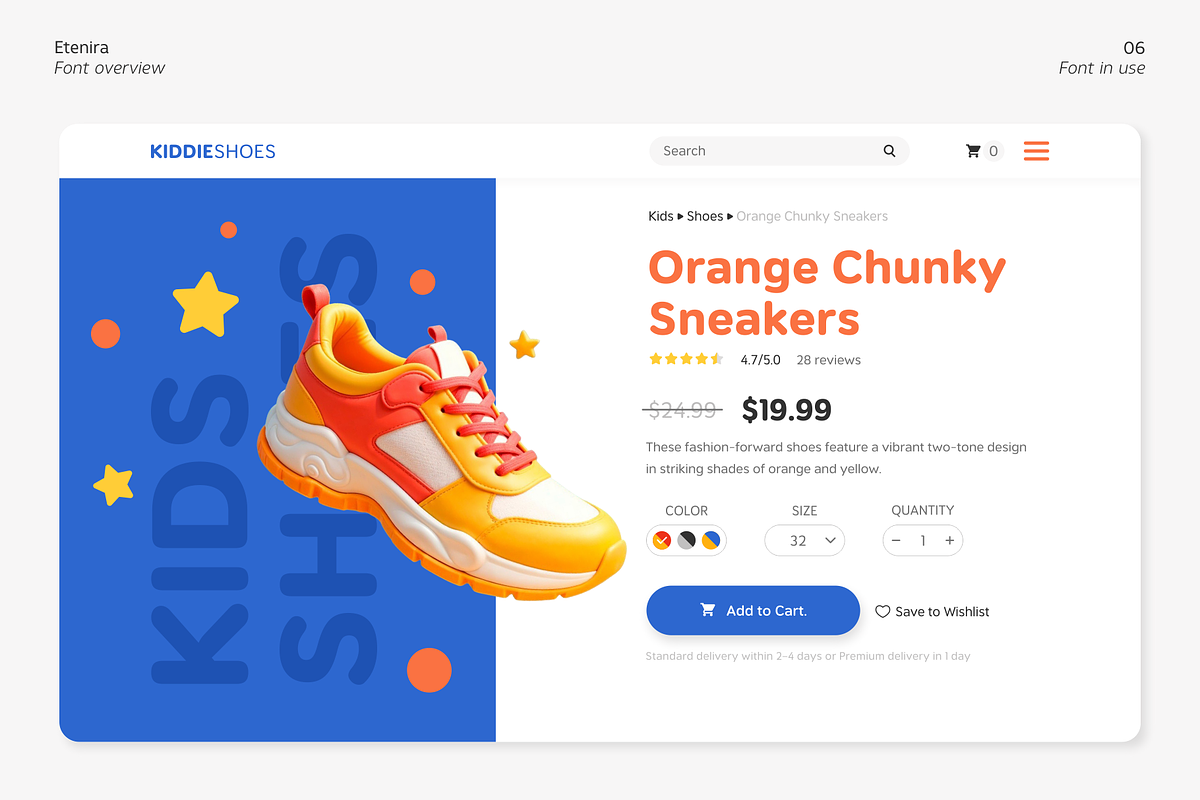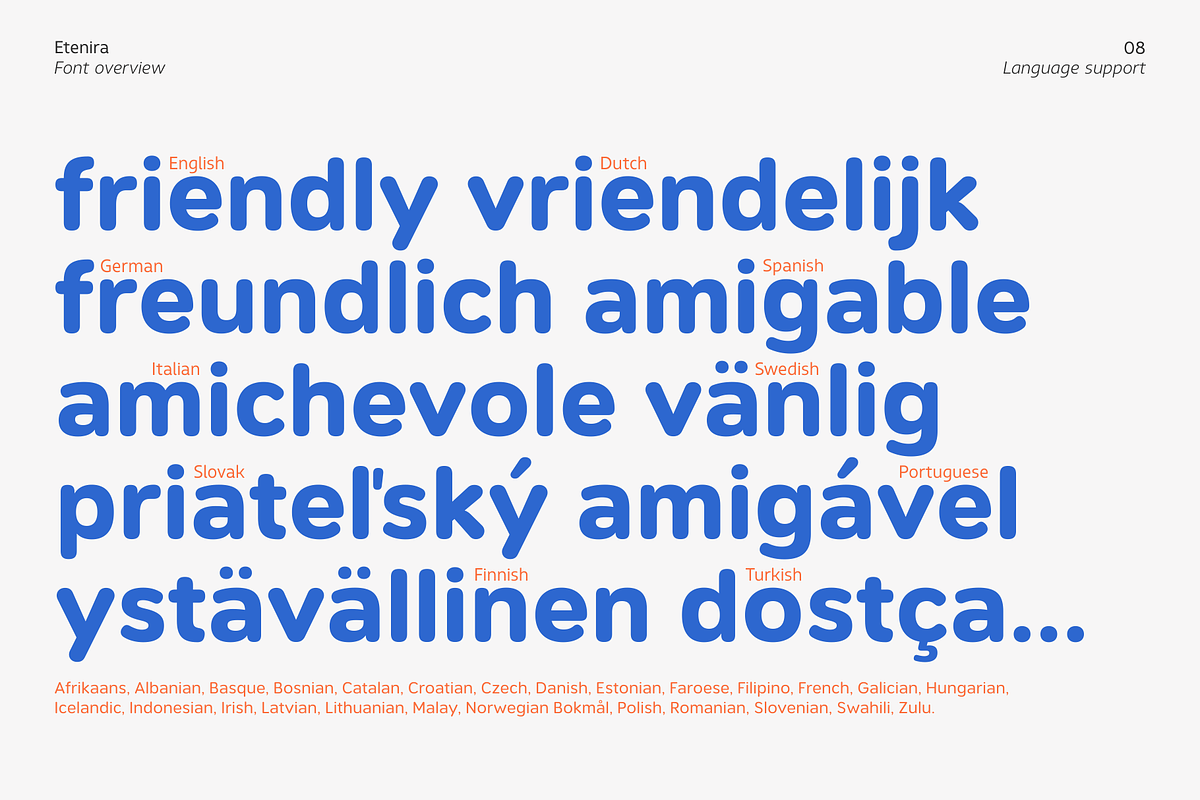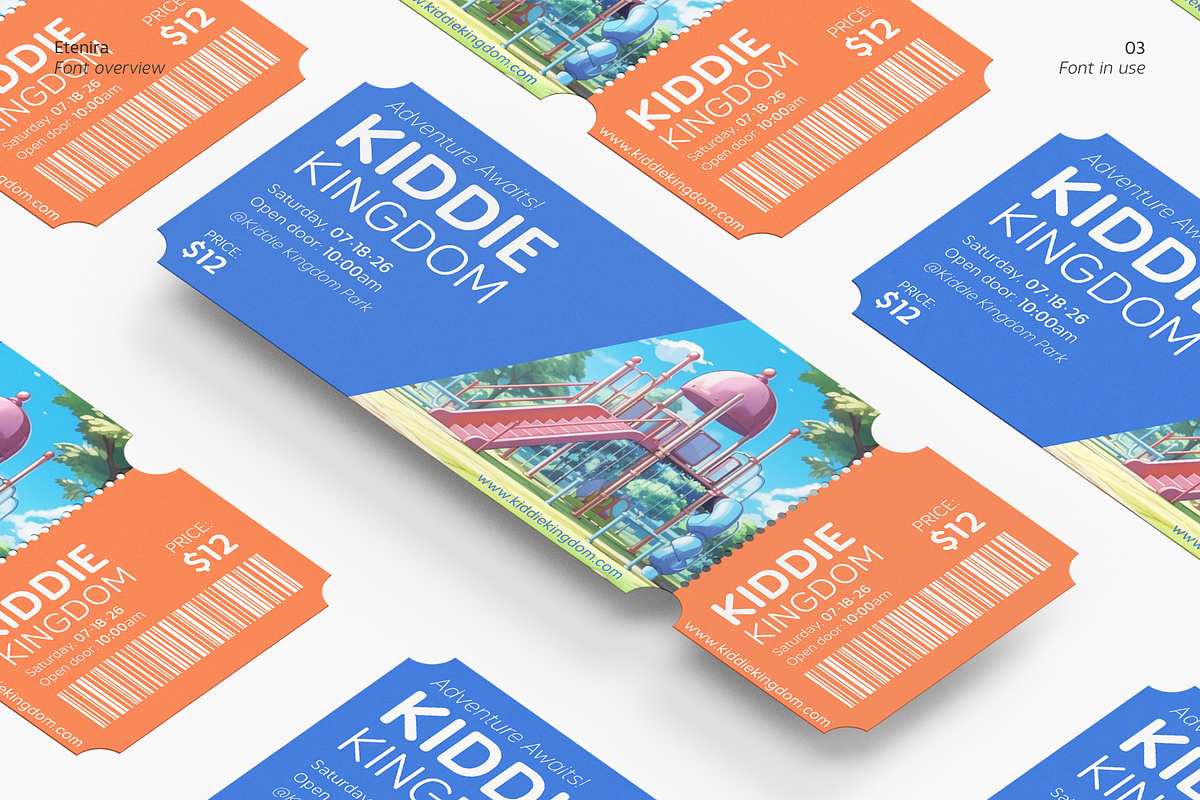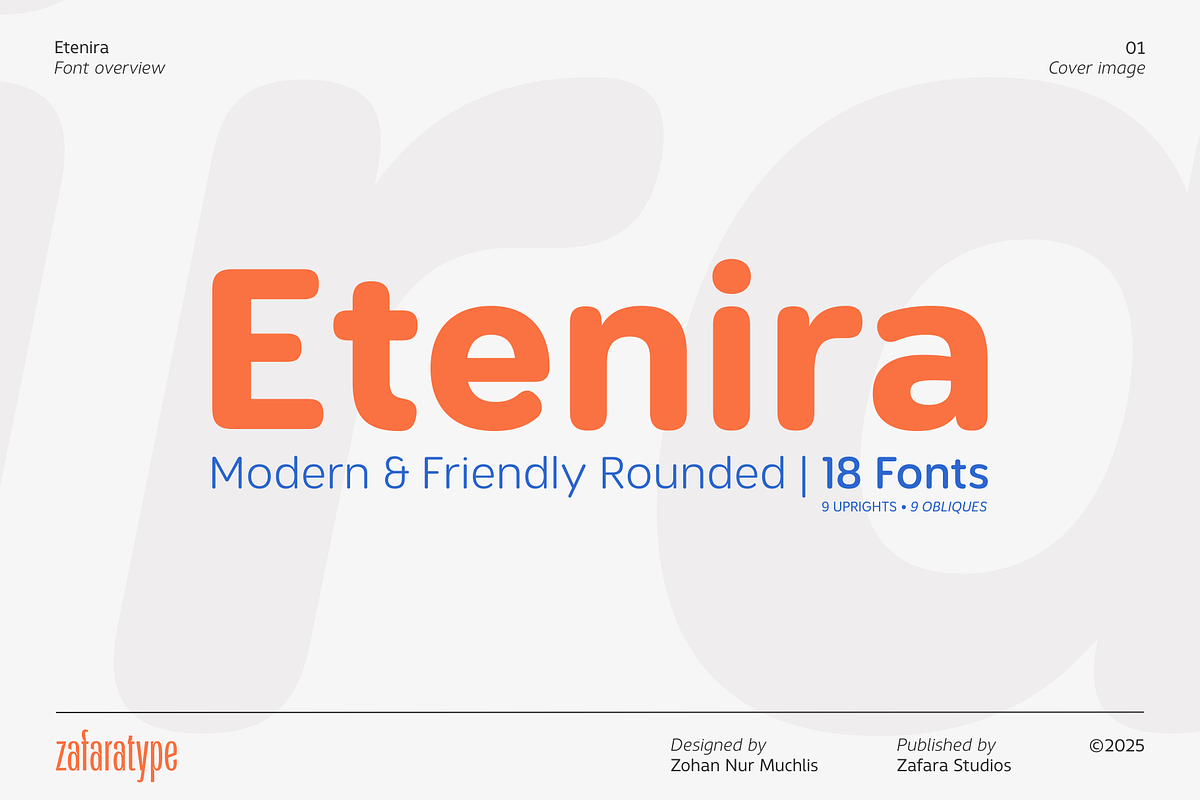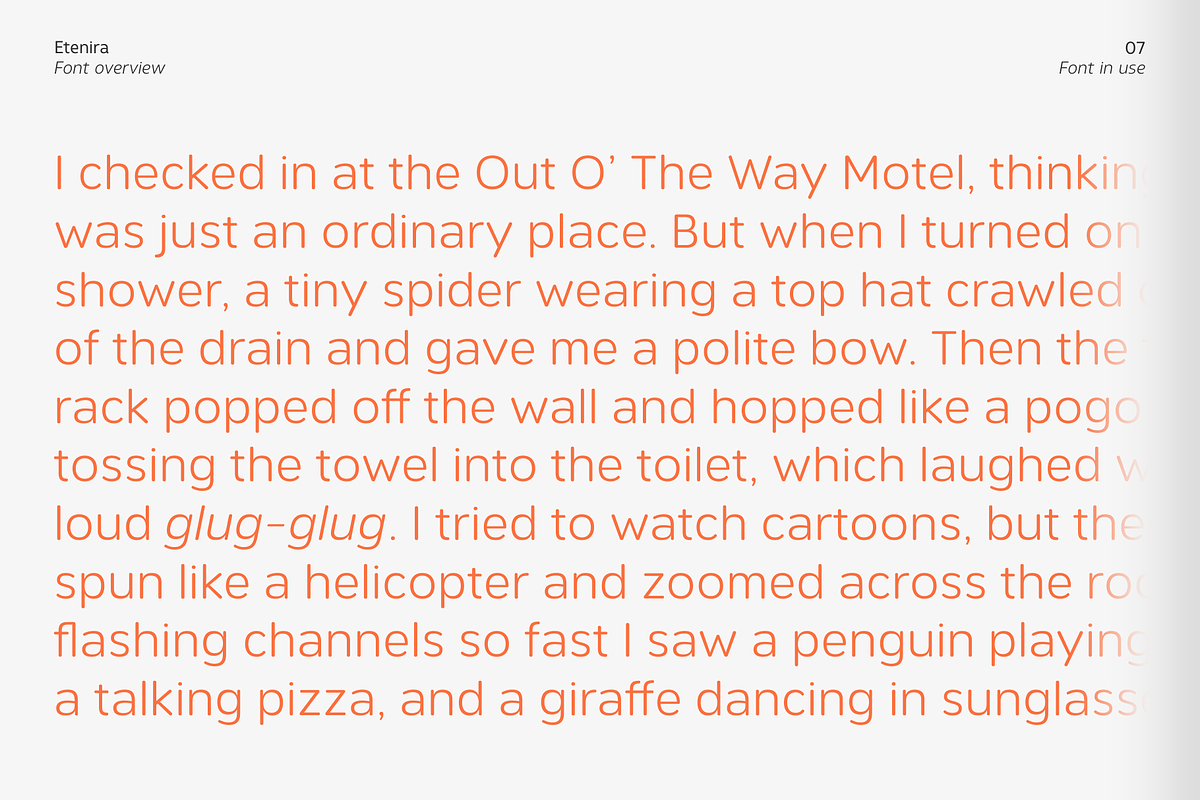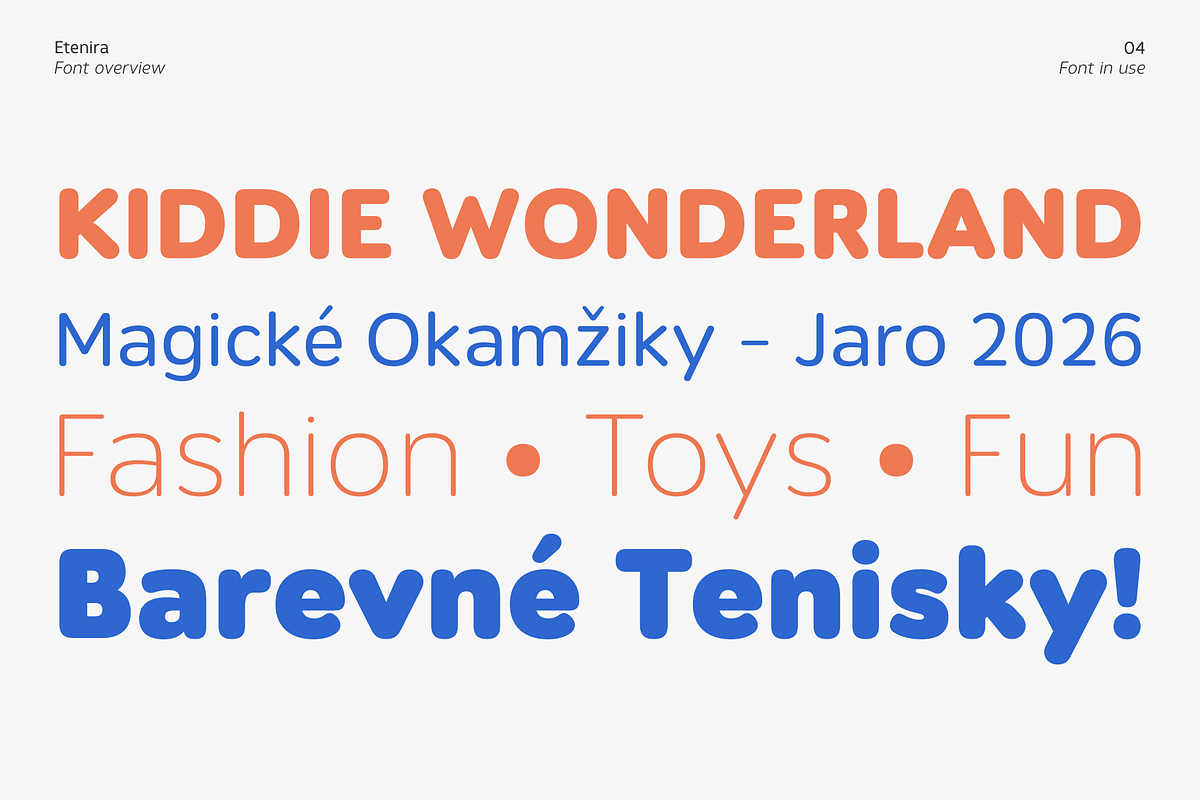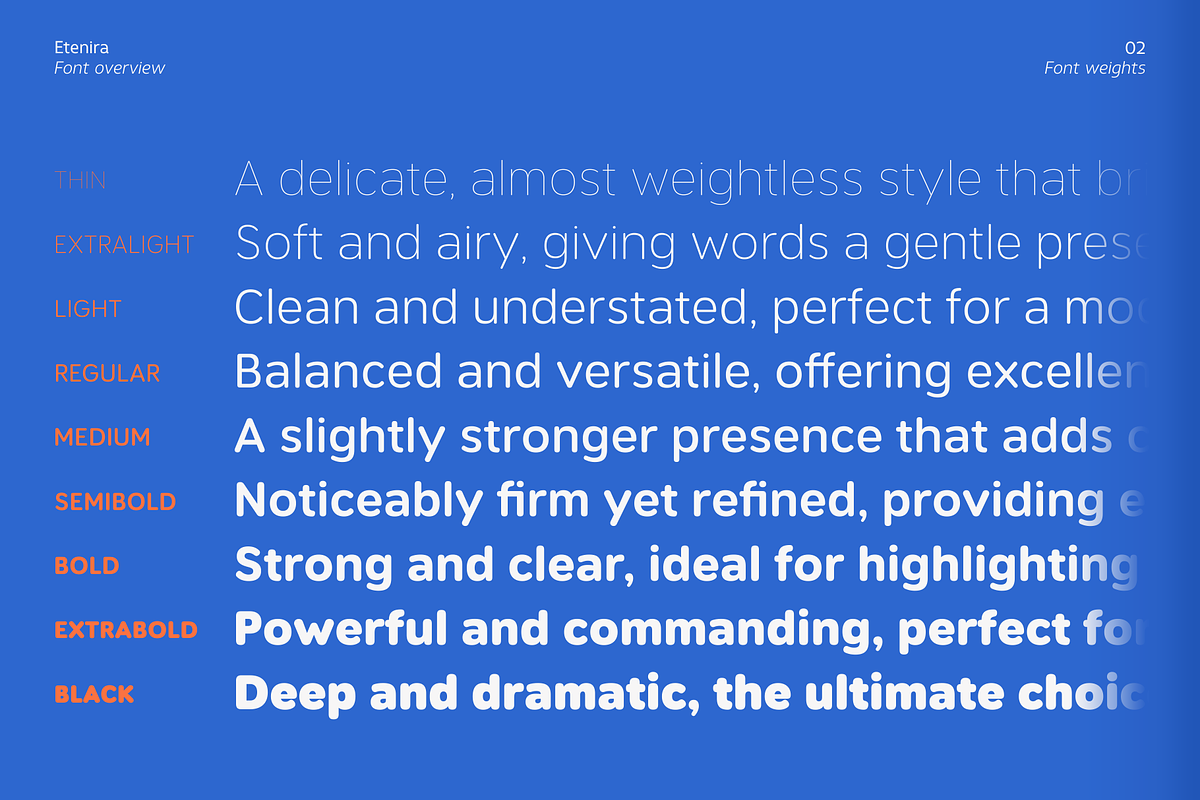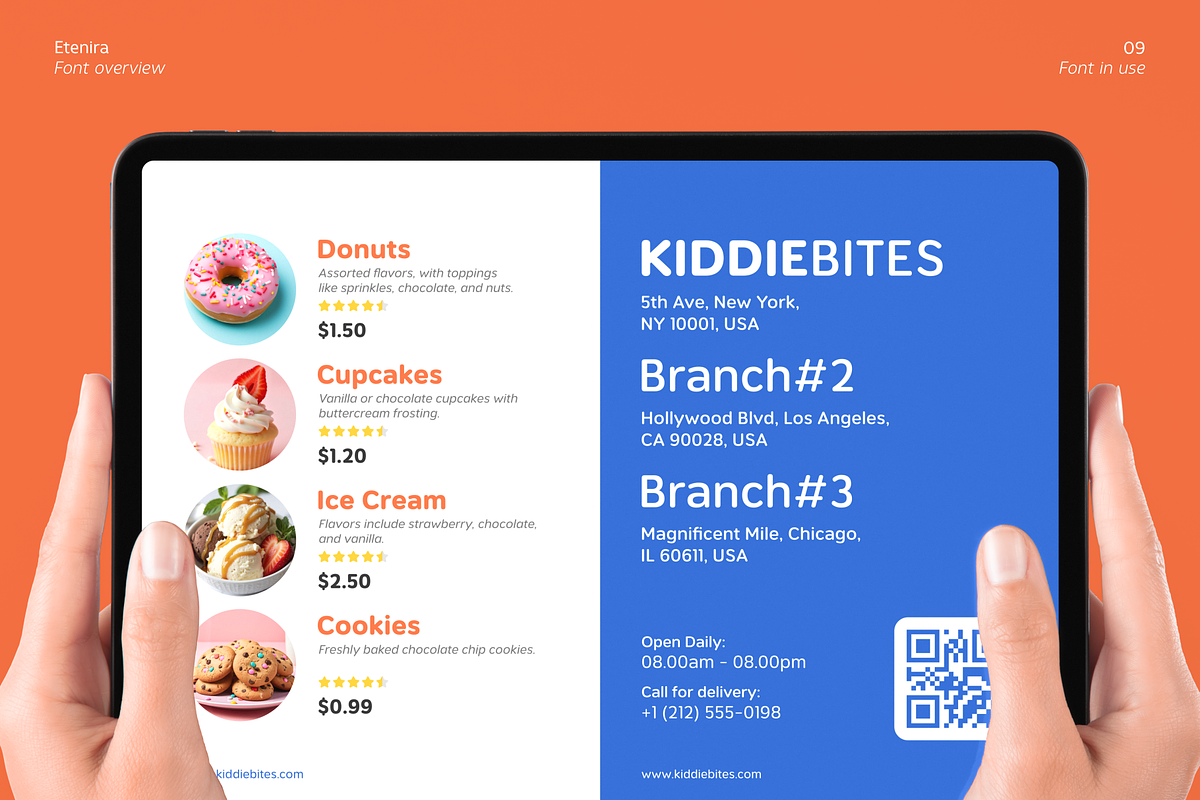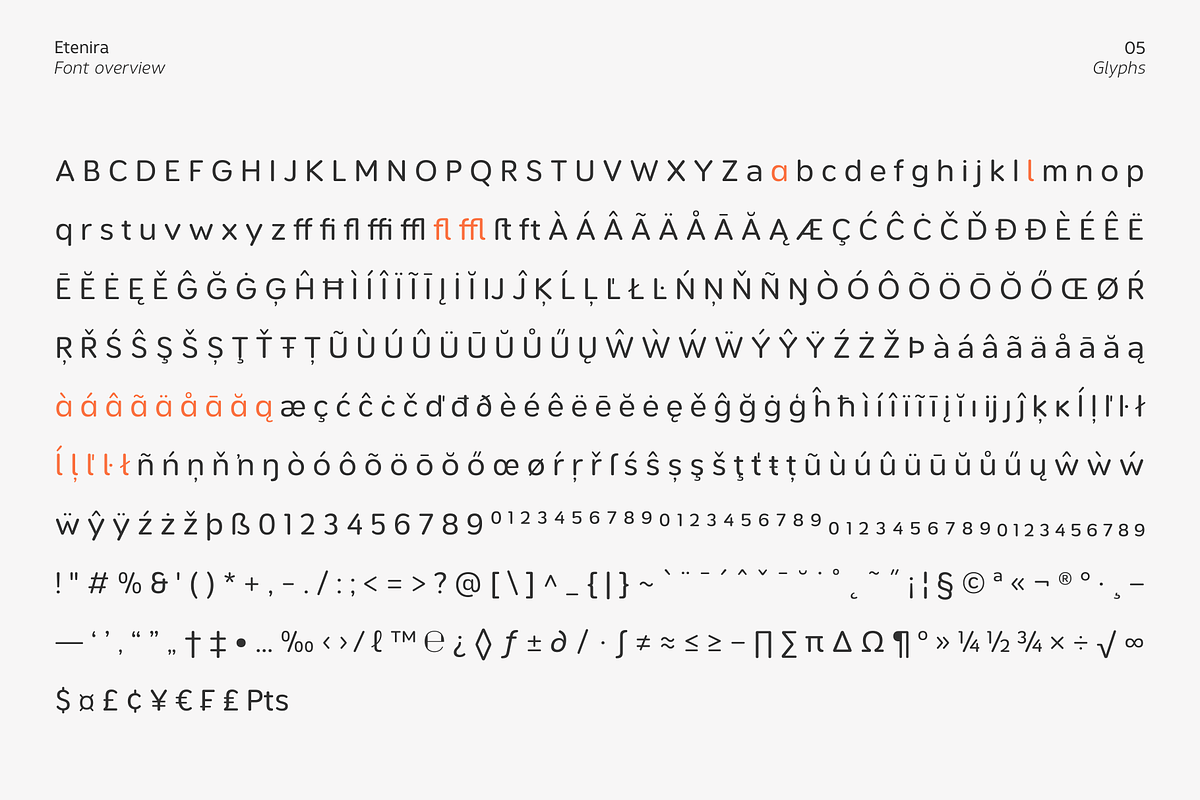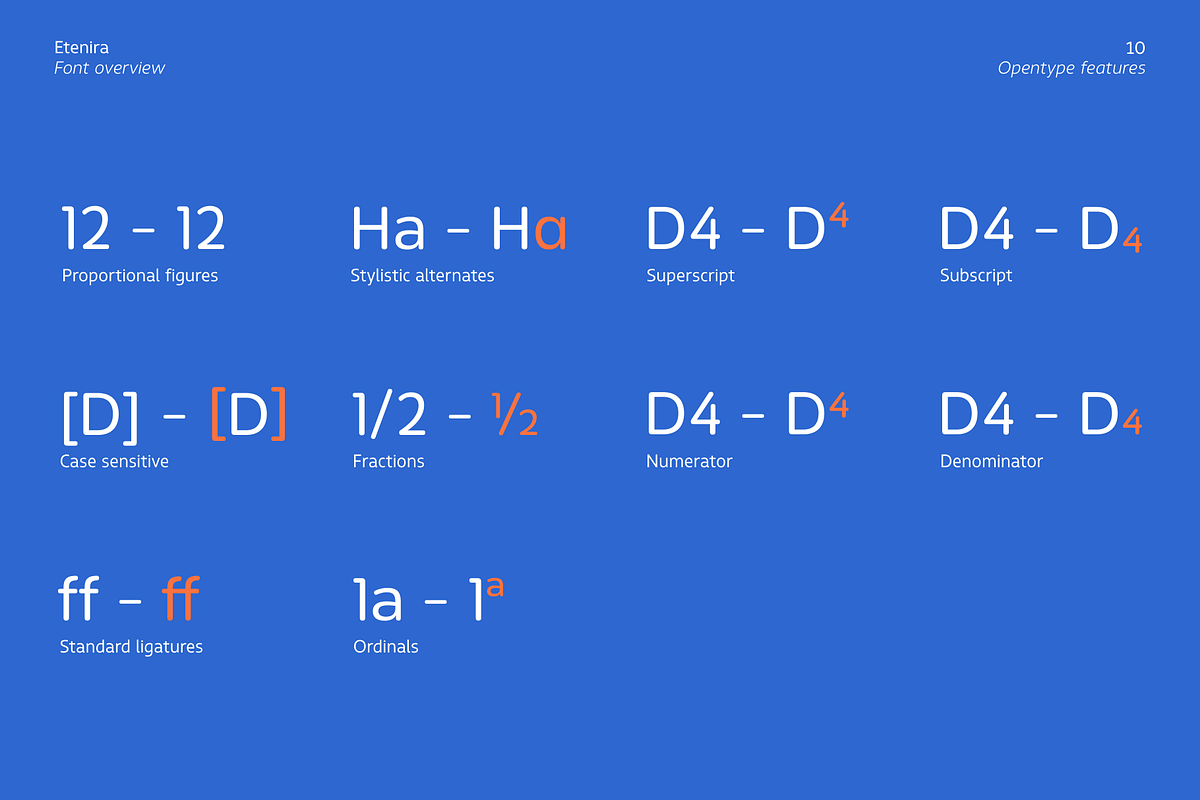
Etenira
Etenira is a Modern & Friendly Rounded font family that blends soft curves with balanced proportions, bringing warmth and friendliness to any project. With its clean, contemporary style, it offers versatility for branding, packaging, editorial design, web interfaces, and beyond.
- 18 styles: 9 uprights (Thin to Black) and 9 matching obliques
- 473 glyphs with extended Latin coverage
- Includes uppercase & lowercase, punctuation & math symbols, case-sensitive forms, standard ligatures, localized forms, ordinals, fractions, subscript & superscript, and historical forms
- Supports 36 languages, including Afrikaans, Albanian, Catalan, Croatian, Czech, Danish, Dutch, English, Finnish, French, German, Hungarian, Indonesian, Italian, Malay, Norwegian Bokmål, Polish, Portuguese, Spanish, Swedish, Turkish, Zulu, and more
Etenira is more than just a font; it’s a tool for creating designs that are not only beautiful but also resonate with a sense of comfort and sincerity. Its extensive weight system and broad language support make it a reliable and essential addition to any designer’s toolkit.